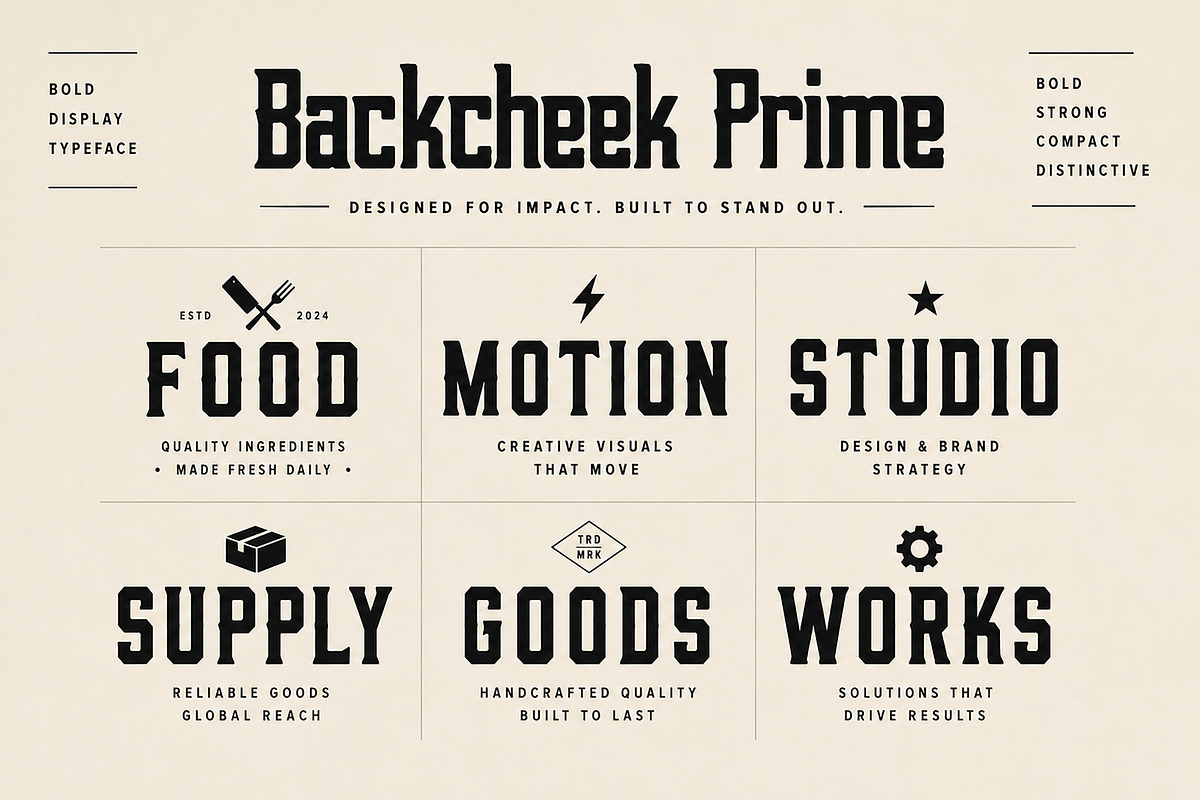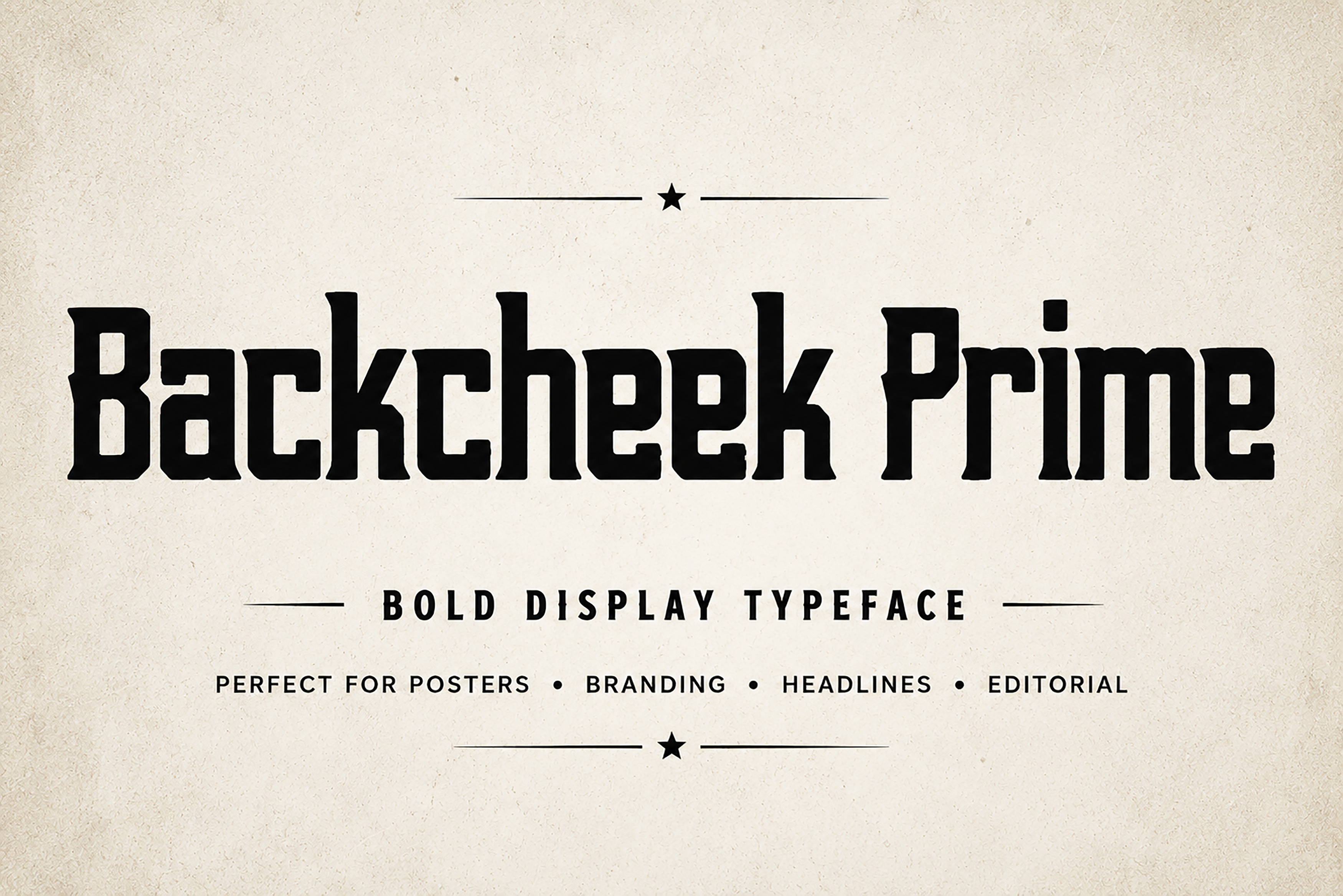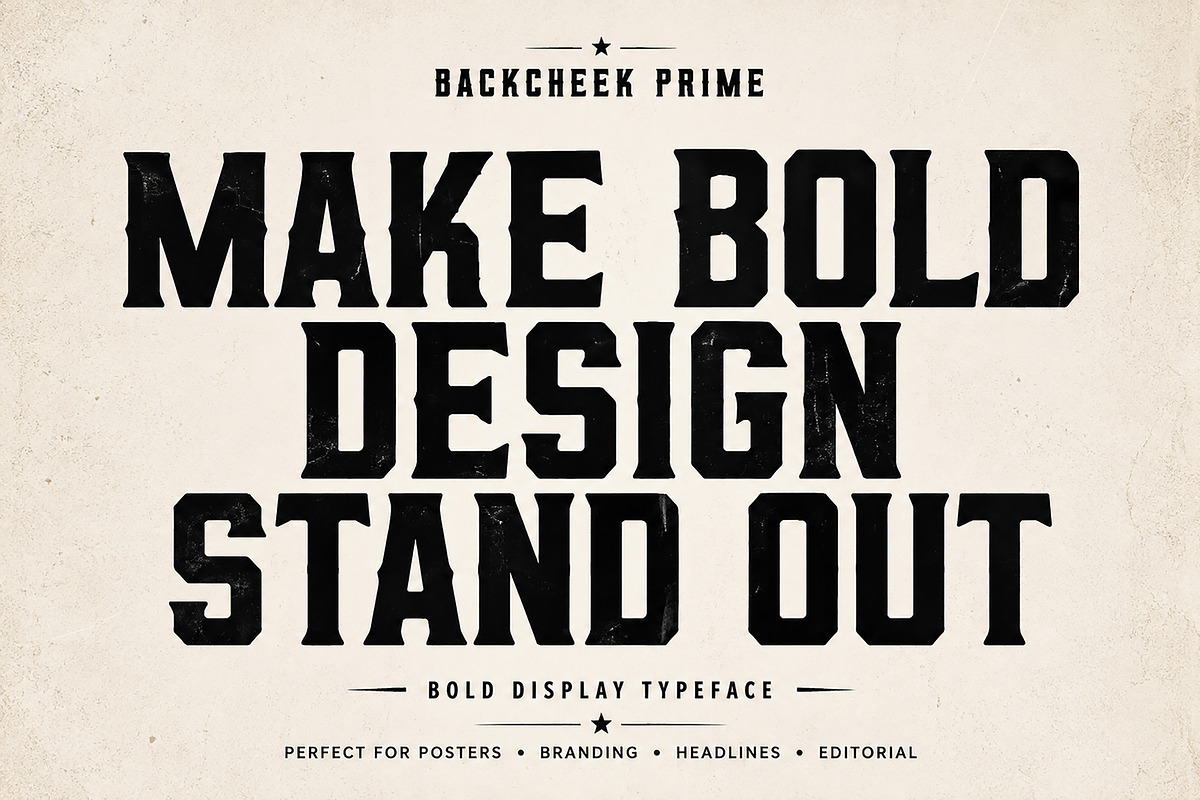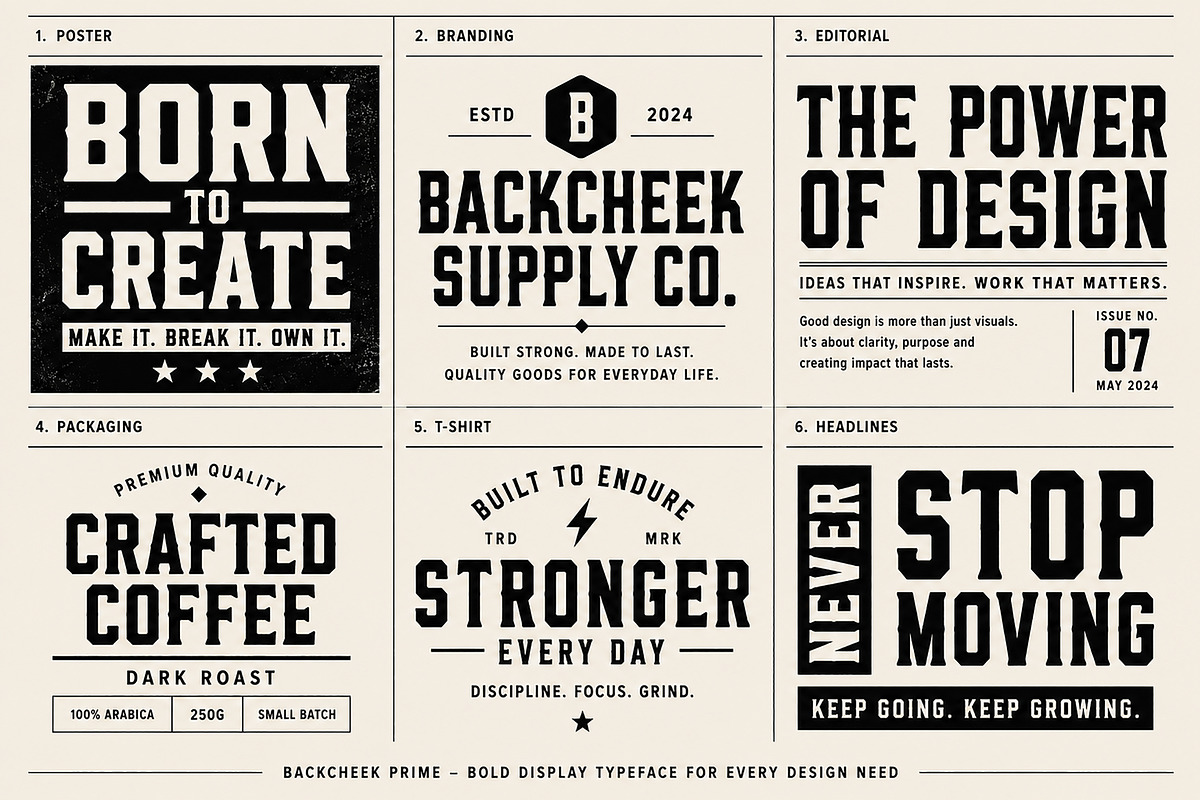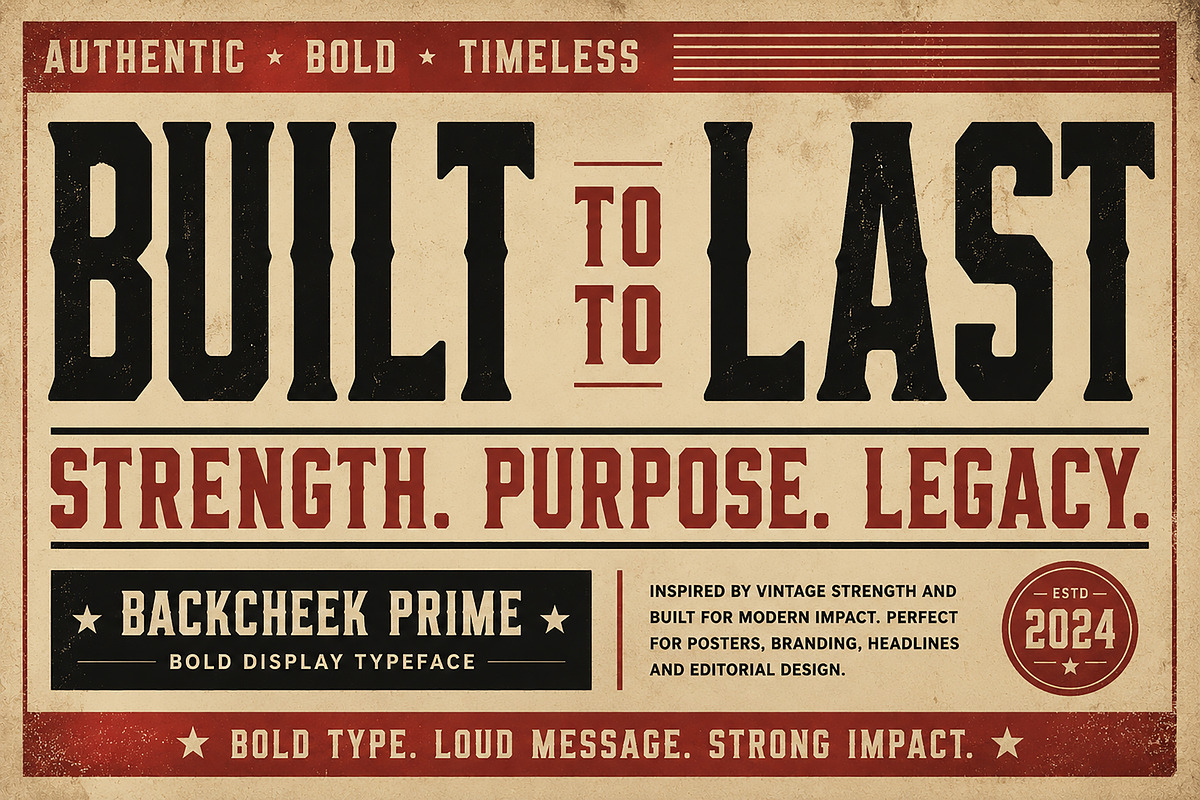
Backcheek Prime — Bold Display Font
Backcheek Prime — Bold Vintage Display Font
Backcheek Prime is a bold and powerful display typeface designed to make a strong visual statement. With its heavy, compact letterforms and distinctive character, this font is perfect for designs that need an impactful, confident, and memorable typographic presence.
Its strong display style works beautifully for posters, branding, headlines, editorial layouts, packaging, apparel designs, labels, badges, advertising, and other attention-grabbing creative projects.
Whether you're creating a vintage-inspired design or a modern, bold visual identity, Backcheek Prime gives your typography a strong and distinctive personality.
Bold and impactful display style
Strong, compact letterforms
Distinctive vintage-inspired character
Excellent for large headlines and statement typography
Great for posters, editorial designs, packaging, apparel, labels, and more